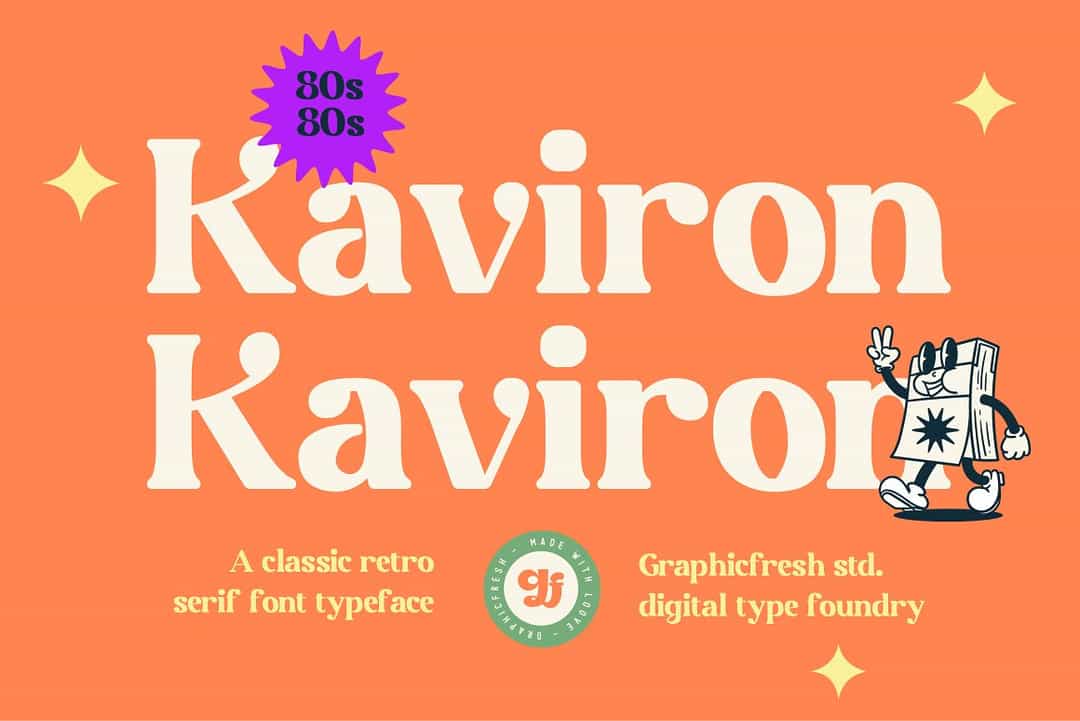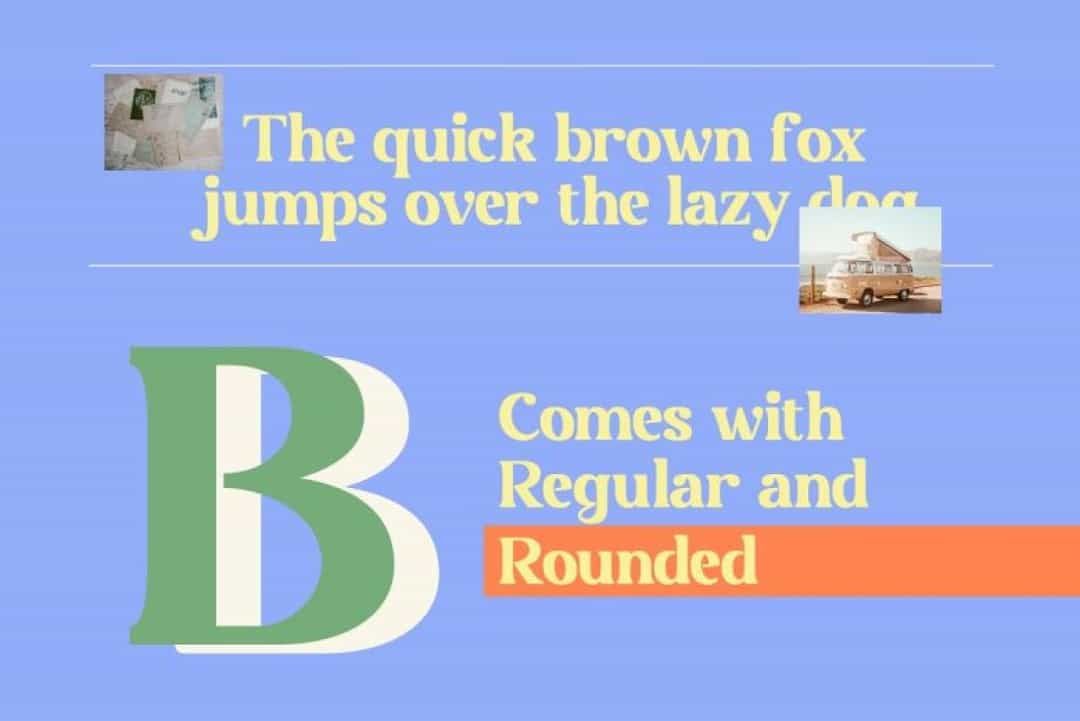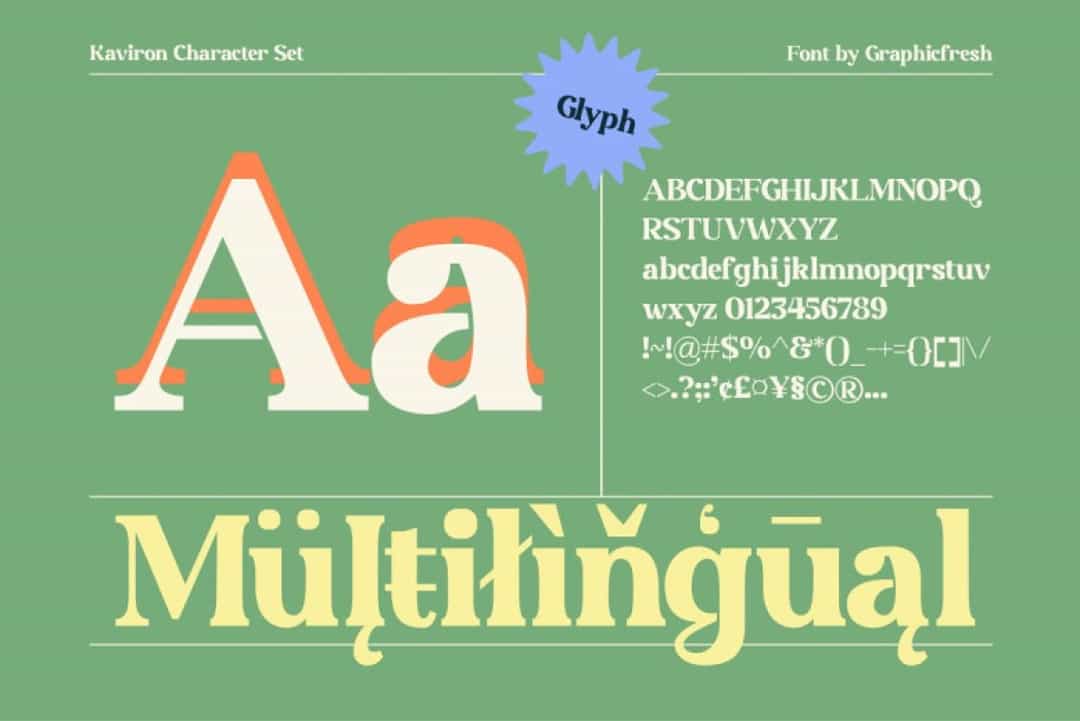
Kaviron Retro Serif Font is named for a street in an Greek city, which boasts multiple civilizations. This font was designed using traditional techniques and boasts its own special use case.